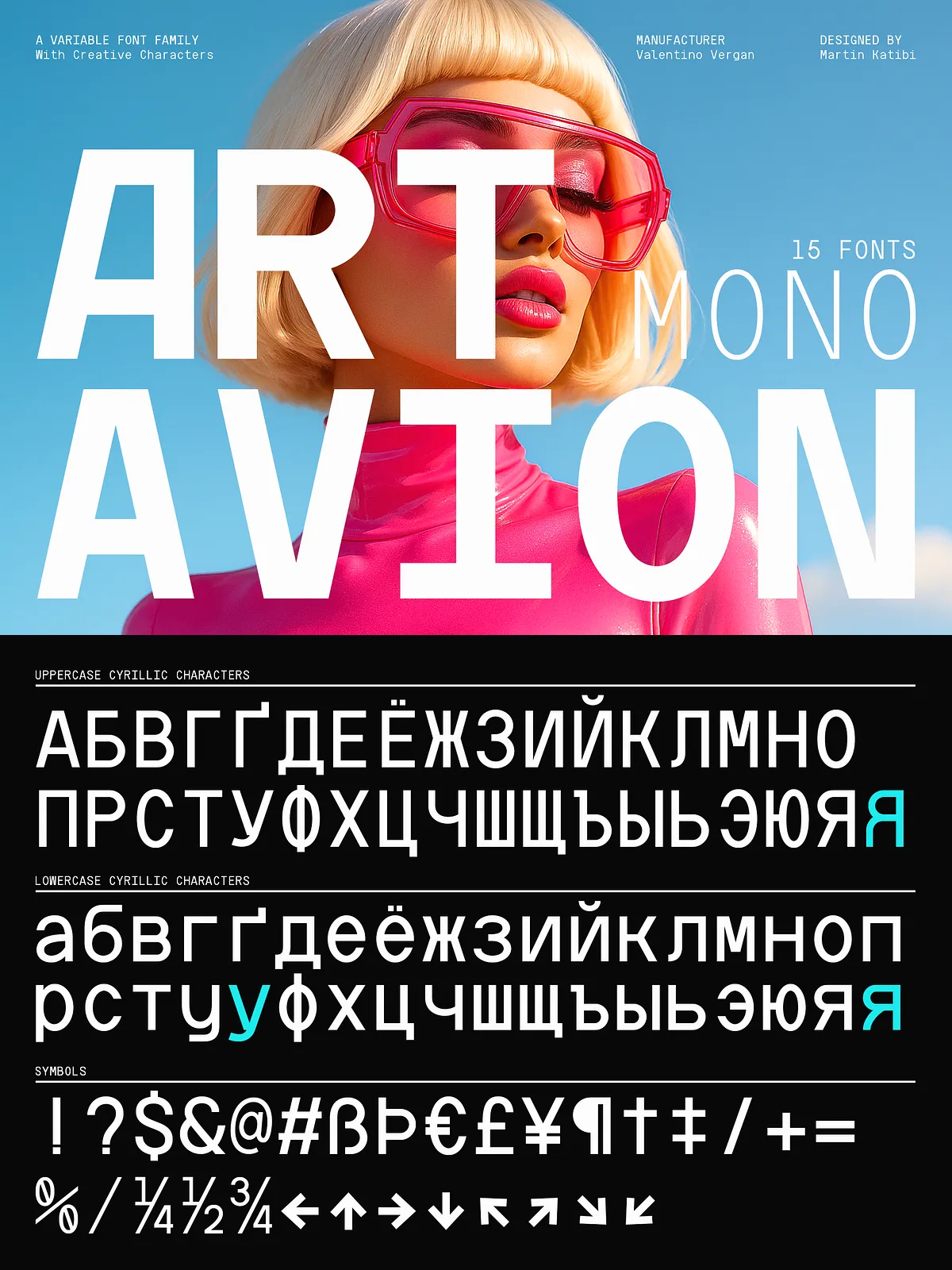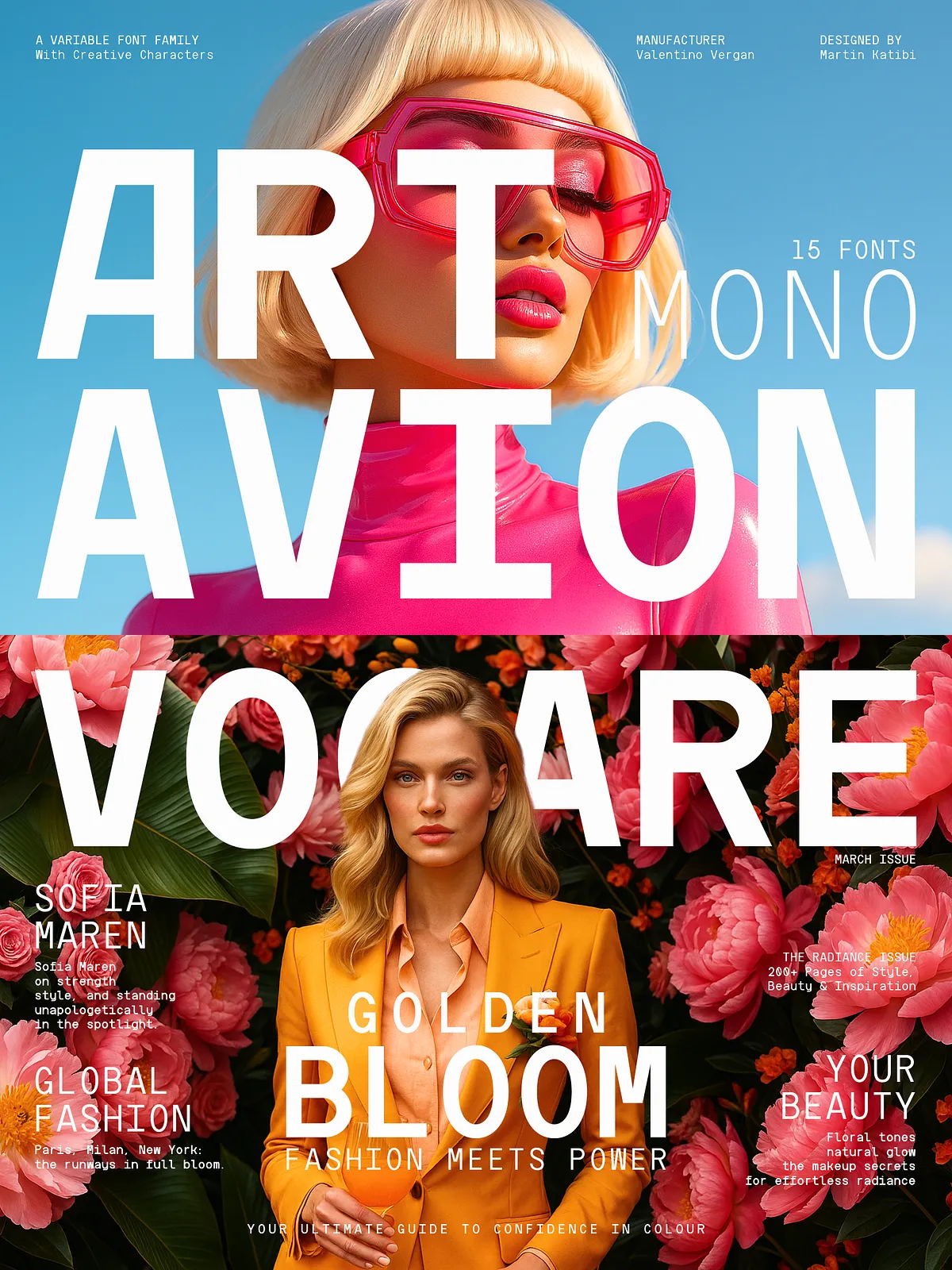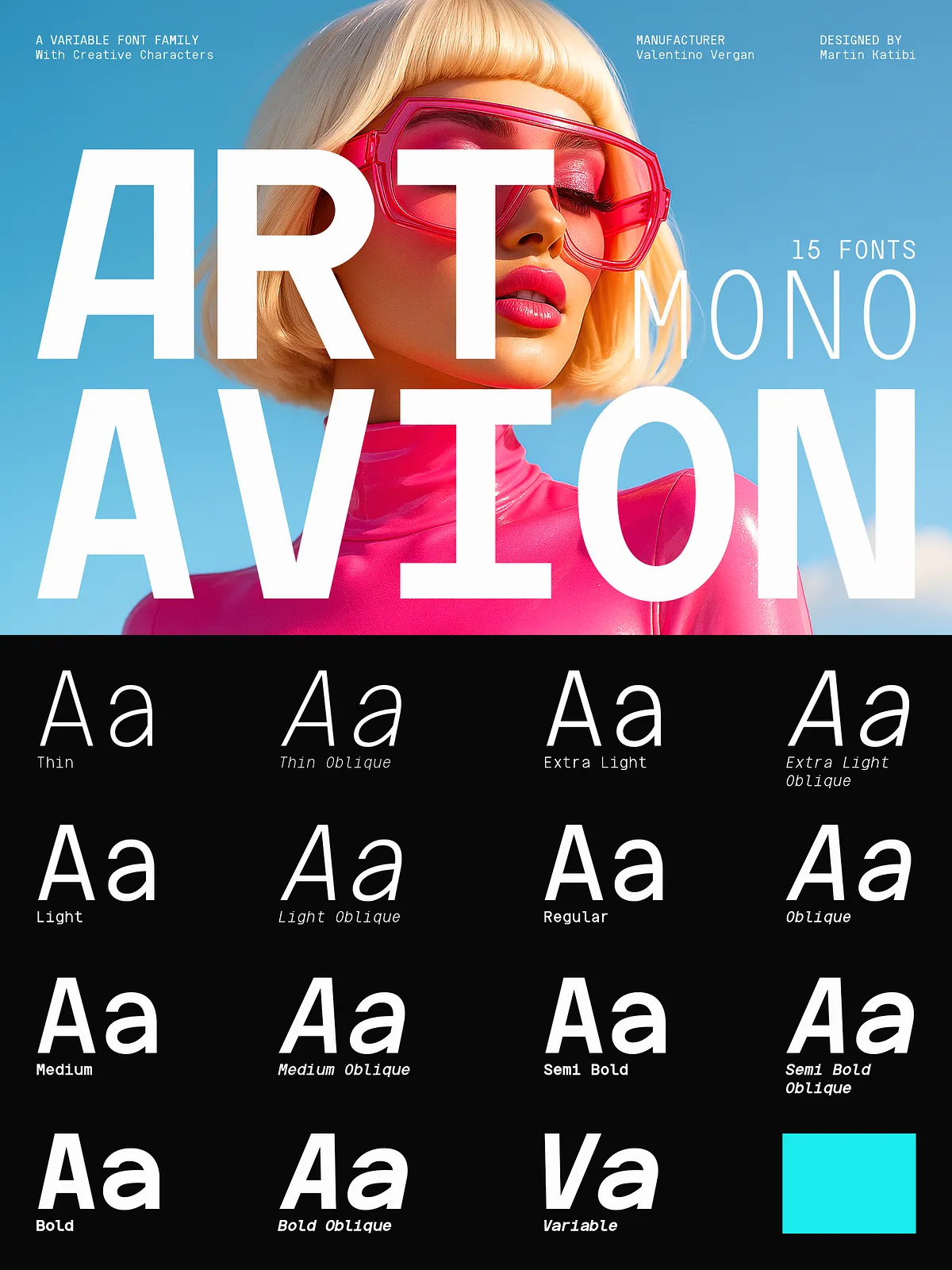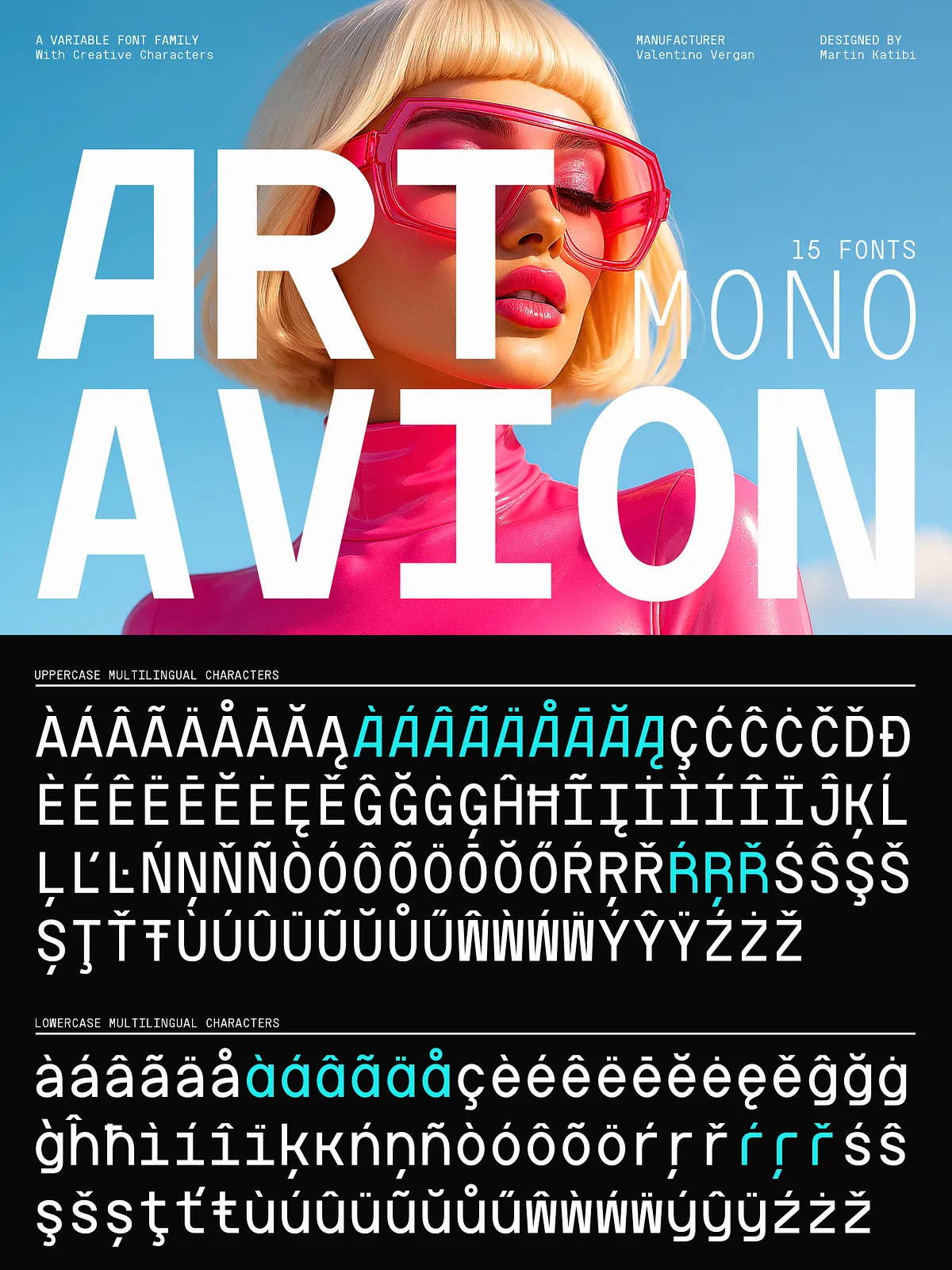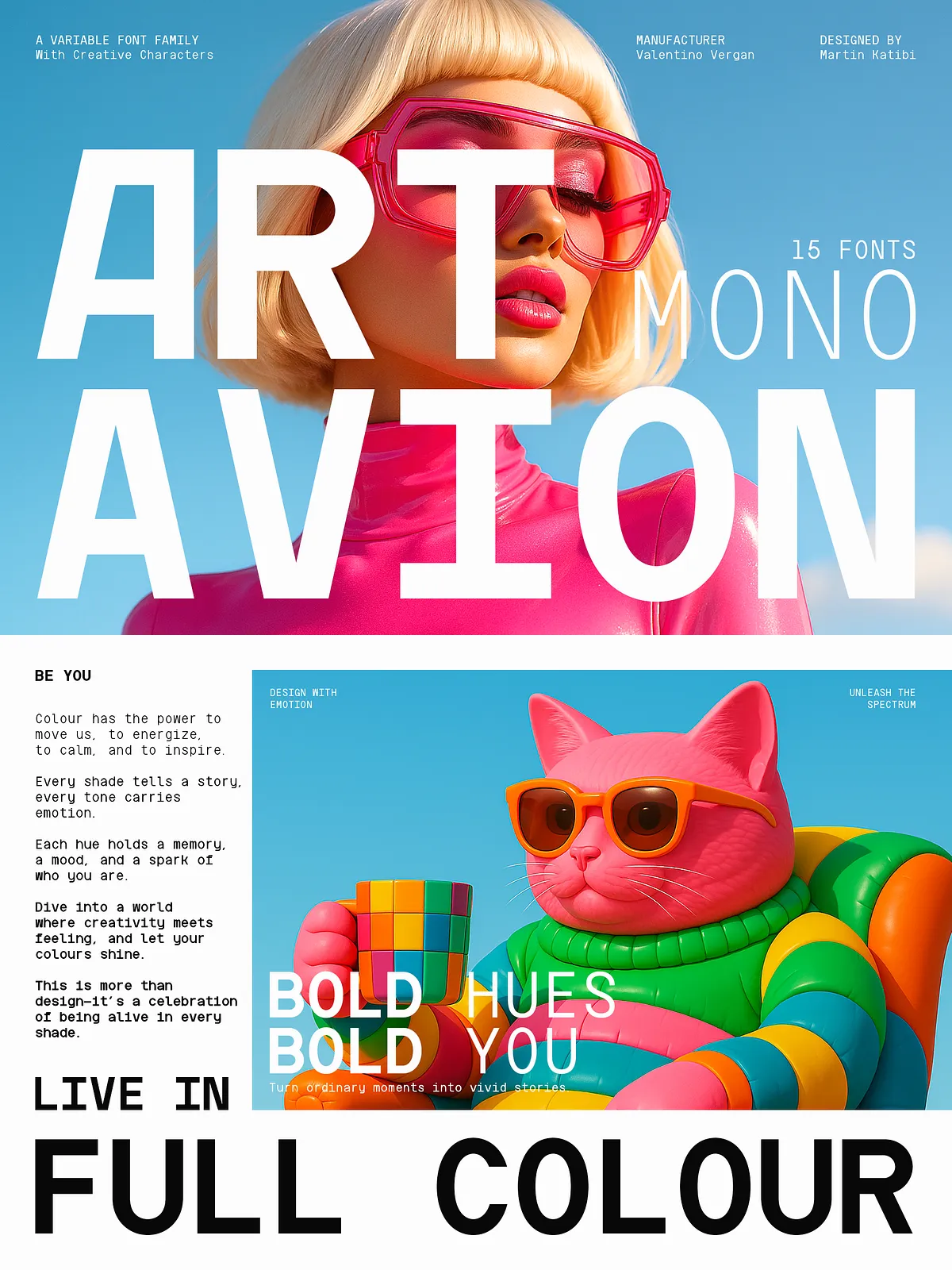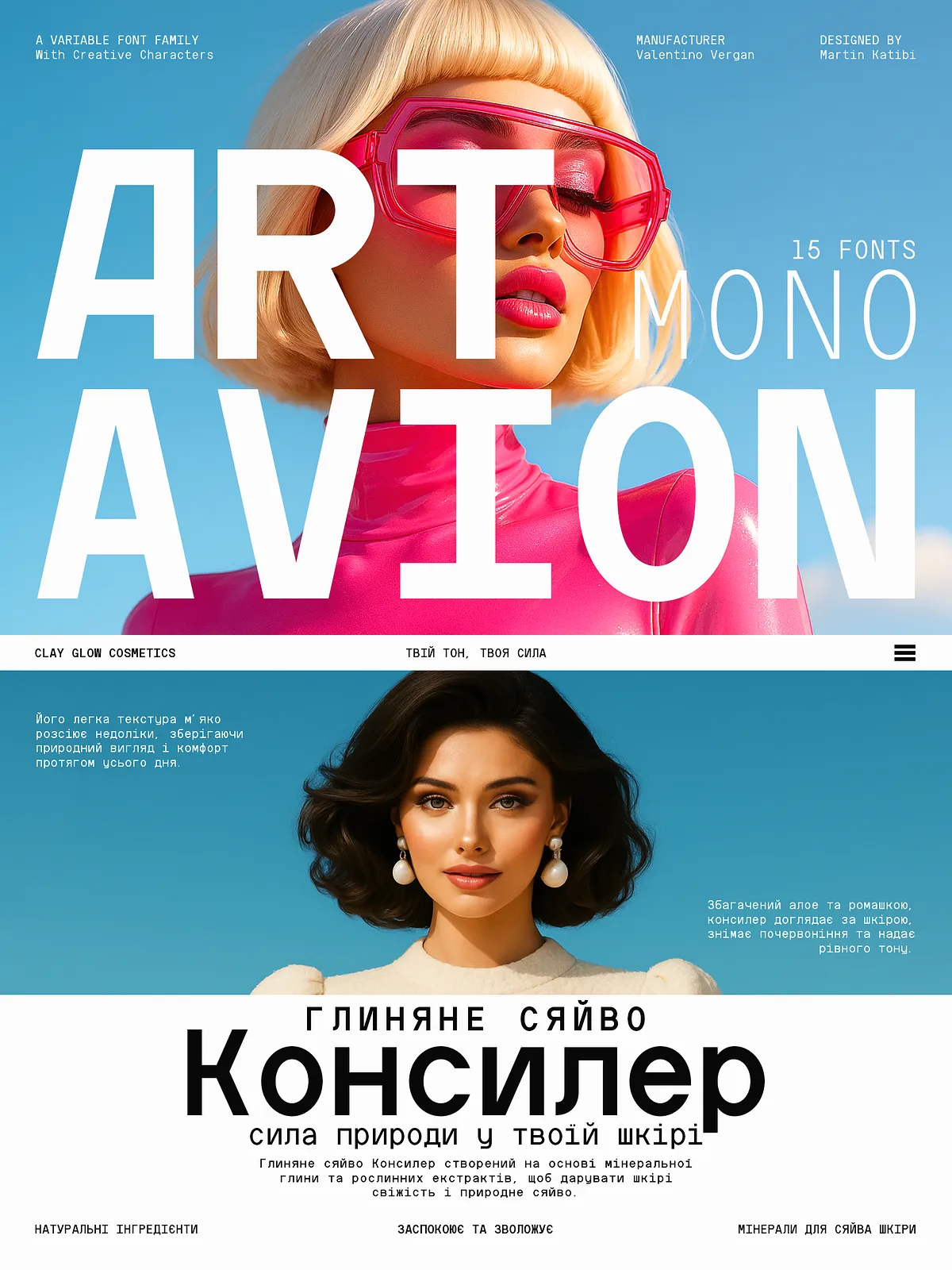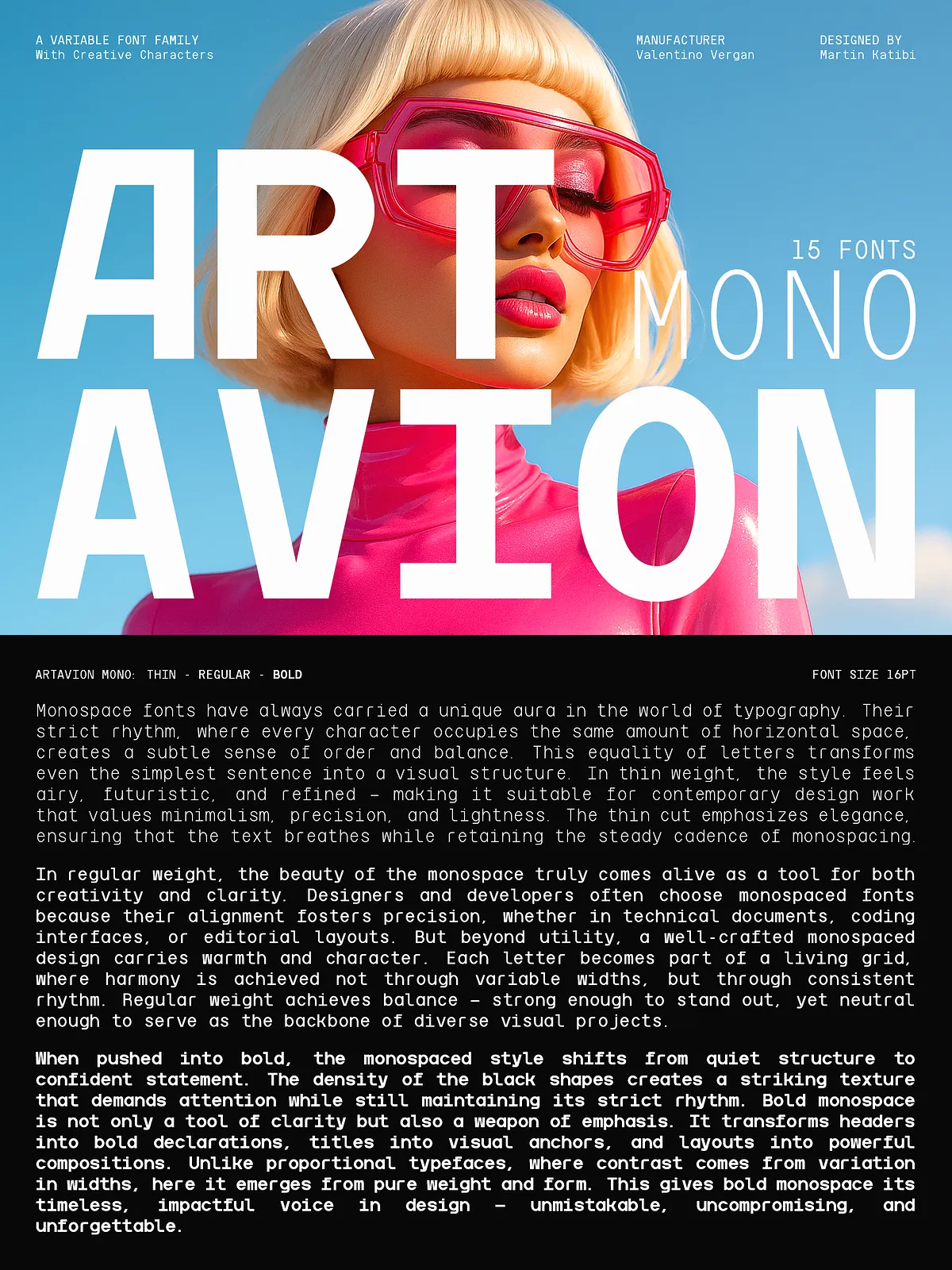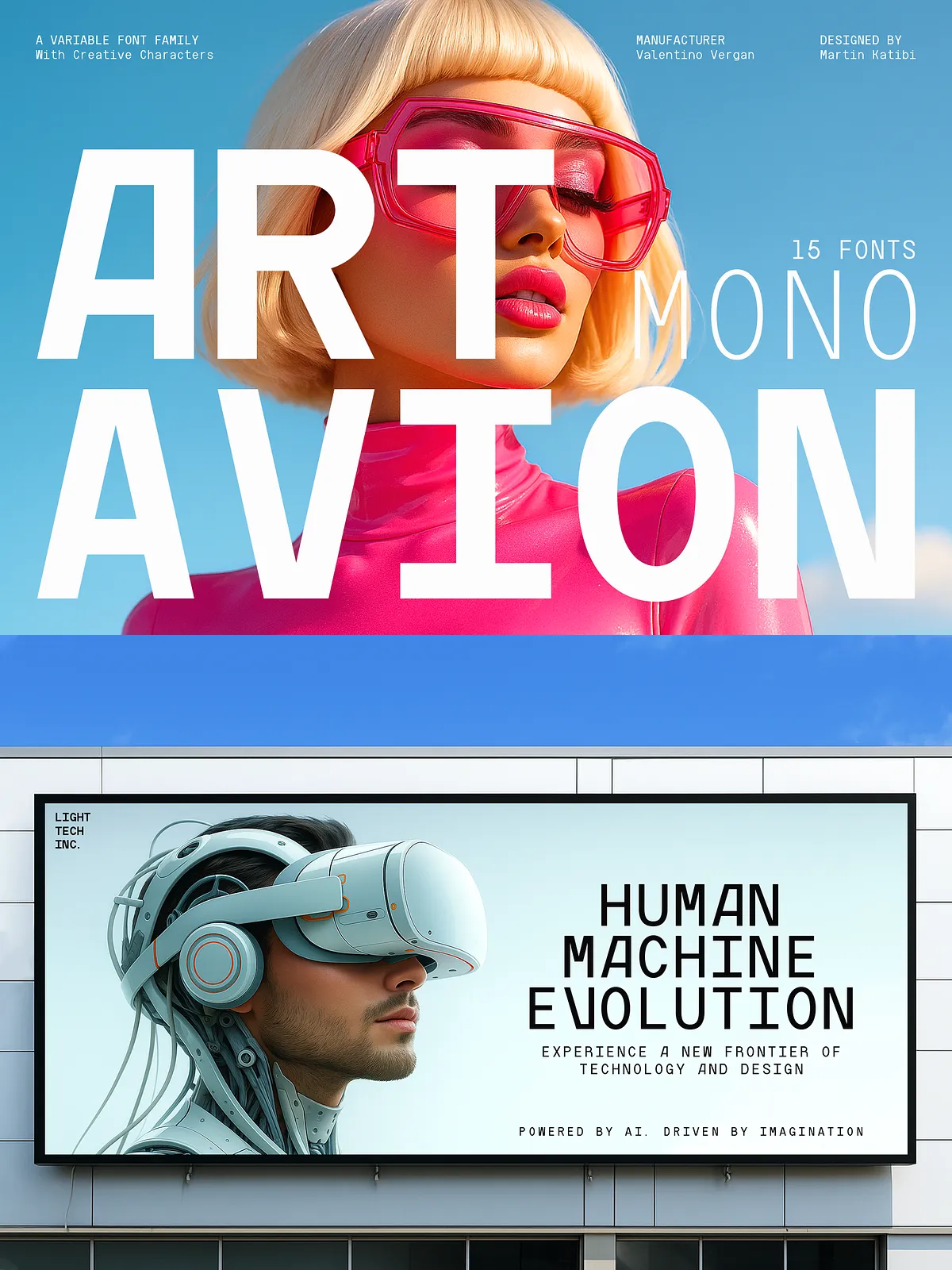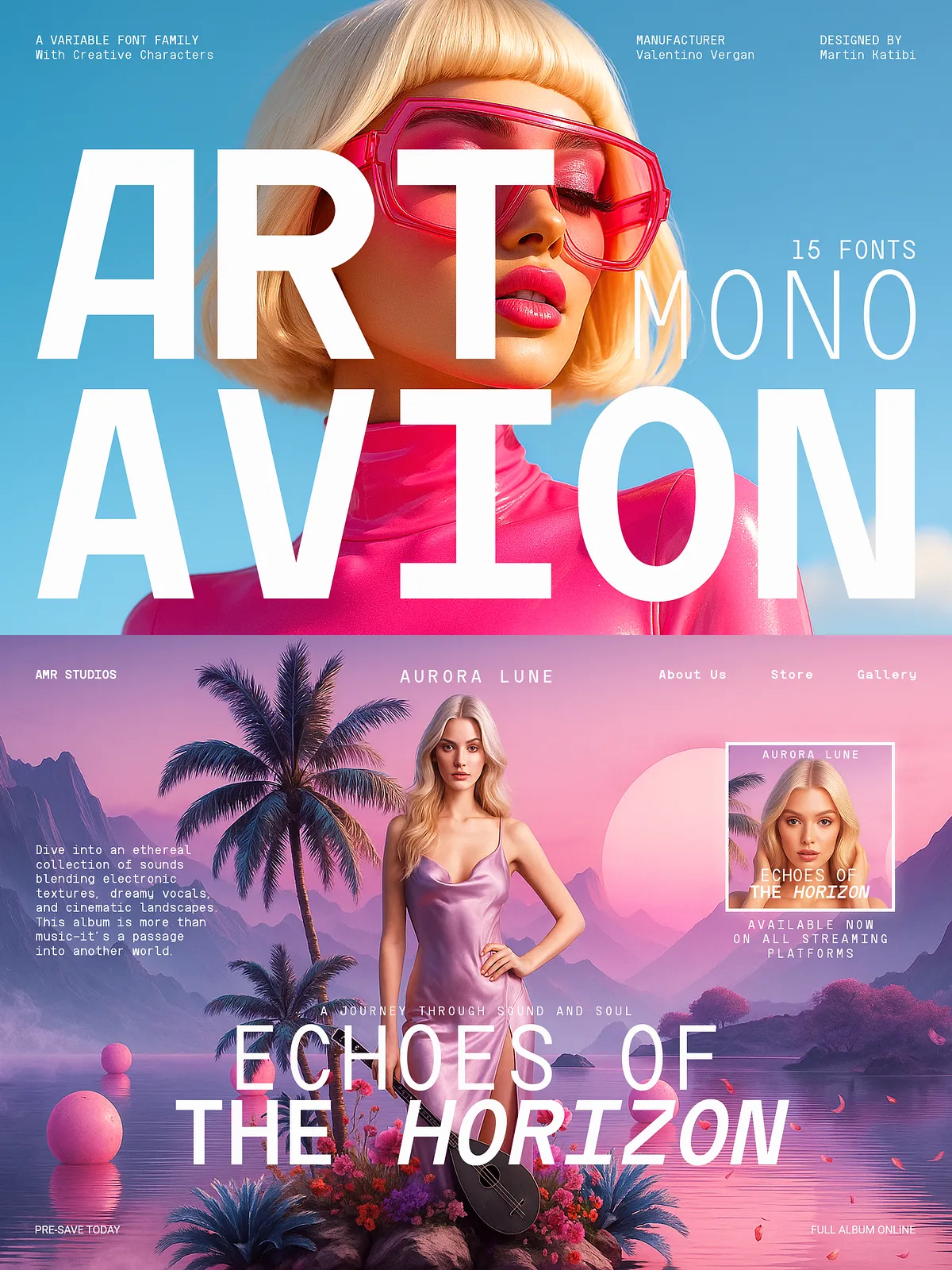
Artavion Mono – Monospace Typeface
Artavion Mono redefines the monospace category by blending rigid, technical proportions with bold, expressive features. Designed specifically for graphic designers, branding studios, and creative teams, the family keeps the alignment benefits of a true monospace while introducing alternates, stylistic sets, and a retro-futuristic voice. The result: a versatile typeface that drives strong visual identities without sacrificing functional clarity.
Design and Character
Precision meets personality
Every glyph in Artavion Mono balances mechanical precision with crafted details. The consistent fixed-width metrics ensure dependable alignment for tables, code blocks, and grid-based layouts. At the same time, alternate letterforms and distinctive terminals inject personality into headlines, posters, and motion pieces. The design actively supports contrast — it reads cleanly at small sizes and asserts presence at display sizes, making it work equally well in UI systems and bold editorial spreads.
Variable Typography System
Real-time control for weight and style
Artavion Mono ships as a variable font, giving designers instant control over weight and stylistic axes. Adjust weight fluidly for subtle emphasis or dramatic headlines. Toggle alternates on the fly to switch from technical restraint to expressive flair. This responsiveness speeds iteration and supports dynamic layouts, animated typography, and adaptive interfaces. Use the variable features to maintain visual consistency across screen sizes and media while exploring a wide design range from minimalist to strikingly bold.
Language Support and Multilingual Use
Extended Latin and Cyrillic coverage
Artavion Mono includes extended Latin and full Cyrillic glyph sets, enabling consistent branding across multiple markets. The family supports diacritics and language-specific characters used in many European and Eurasian languages. Designers and agencies can deploy Artavion Mono confidently in multilingual campaigns, ensuring typographic consistency and professional rendering across translated collateral.
Practical Applications
Where Artavion Mono excels
Adopt Artavion Mono for projects that demand both structure and visual impact. It performs exceptionally well for:
• Bold editorial design and magazine spreads that need mechanical rhythm with expressive headlines.
• Expressive branding and campaign identities that require a modern, technical voice with character.
• Futuristic interfaces, dashboards, and UI/UX systems that demand readable monospace metrics and a stylistic edge.
• Posters, motion graphics, and kinetic typography where alternates and variable weight animate strongly.
• Design systems where consistent width and scalable weights accelerate production and maintain brand integrity.
Technical Features and Workflow
OpenType features and developer-friendly behavior
Artavion Mono implements practical OpenType features: stylistic alternates, carefully chosen ligatures, and easy toggles for numeral styles. The fixed metrics guarantee stable alignment in code editors and documents that require tabular precision. The variable font format reduces file overhead when using multiple weights and simplifies responsive typography for web and app environments. Designers working with modern tools will find the family fast to integrate and simple to manipulate.